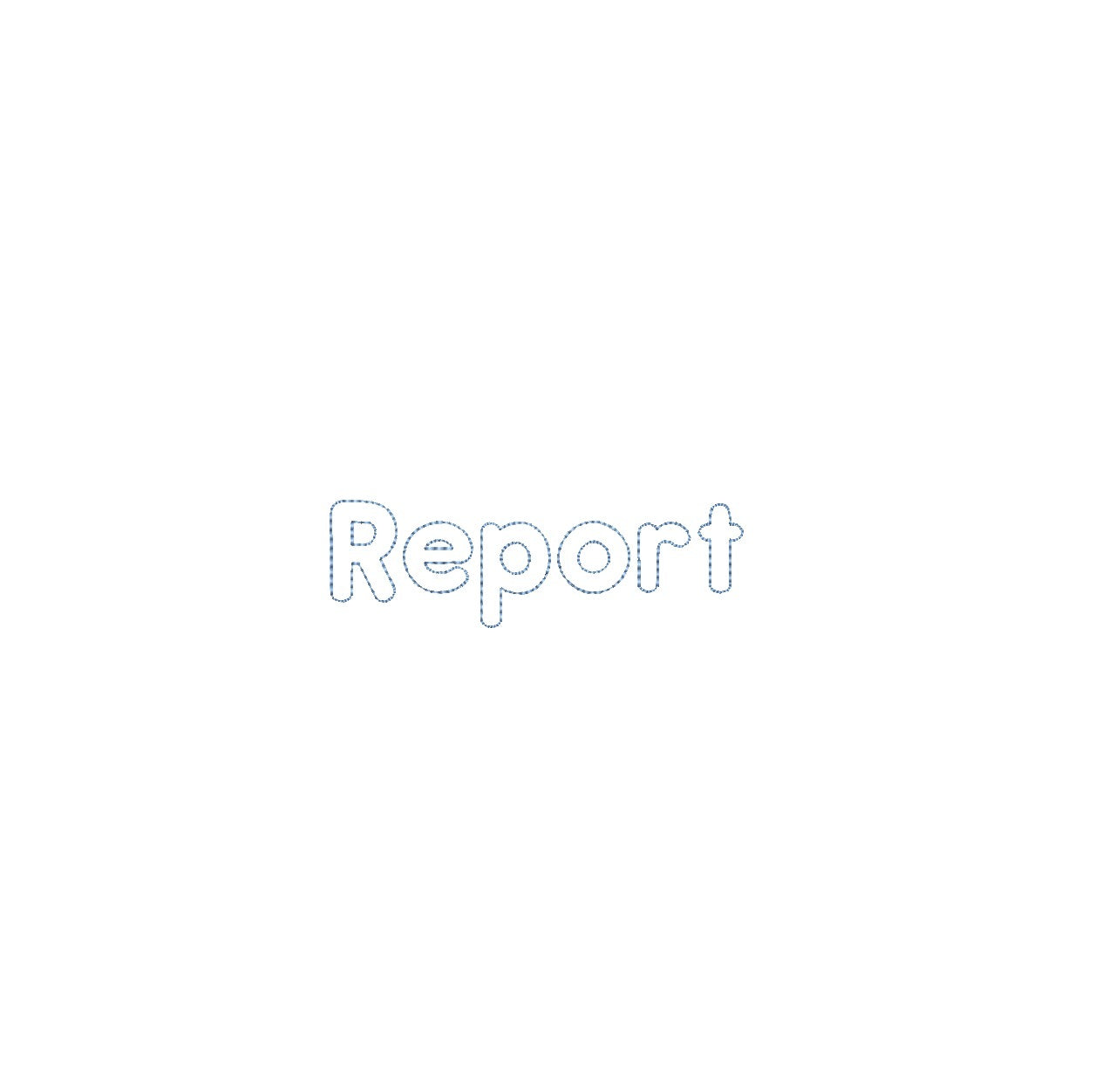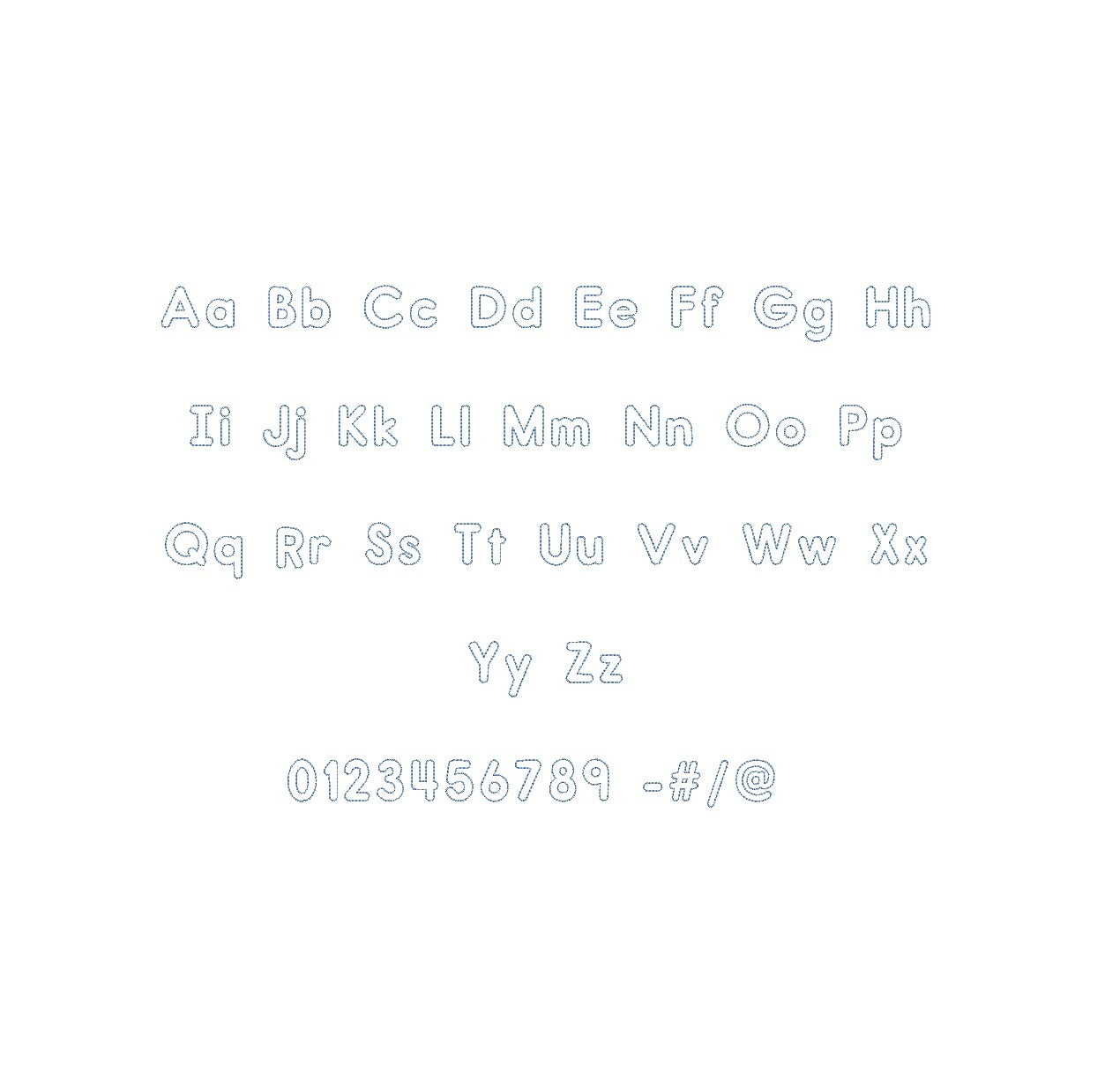
Elevate your embroidery projects with the Report Bean Outline ESA font, designed for Wilcom Studio e4.5.6 and Hatch 3 versions and up. This font seamlessly blends professionalism and precision, infusing your designs with a unique aesthetic ideal for reports and documents. Experience seamless compatibility for exceptional results and unleash a new level of stitching finesse. Transform your creations into embroidery masterpieces that convey credibility and sophistication. Elevate your projects with the Report Bean Outline ESA font and make your embroidery truly polished and impactful.